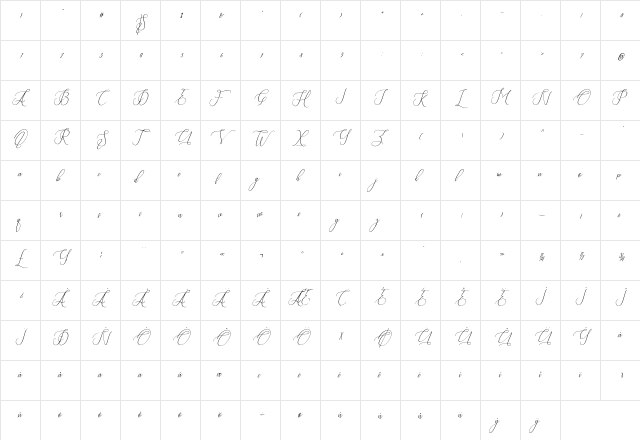
Fantastic Italic
Design Context for Fantastic Typeface
Fantastic is a composed and adaptable typeface that performs quietly and consistently across a wide range of design contexts. The slanted form adds forward momentum and visual energy.
Pro Tip: Use Fantastic for emphasis, pull quotes, and subheadings where its slanted energy can add rhythm to the layout.